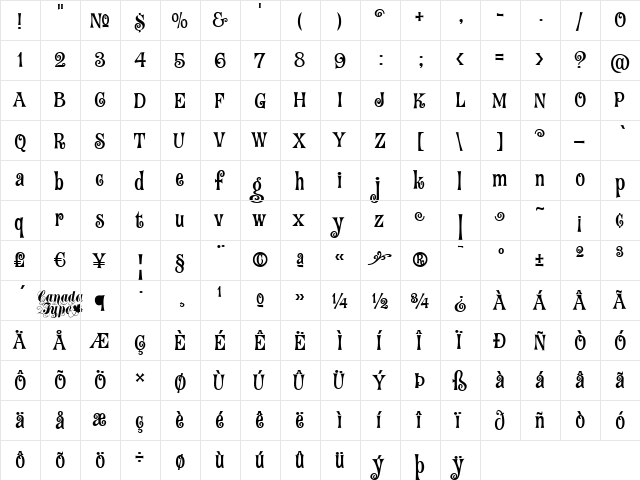
Fantini Regular
Design Context for Fantini Typeface
Fantini is a composed and adaptable typeface that performs quietly and consistently across a wide range of design contexts.